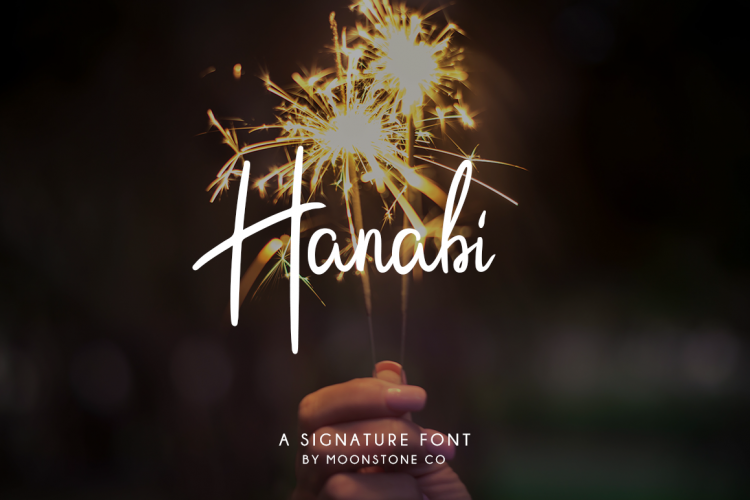
Hanabi Script Font
Introducing – Hanabi Signature Font – This would be gorgeous font for your design projects. Hanabi a work that is purely handwritten, has its own characteristics. It is perfect for invitations, signatures, blogs, social media, business cards, product brands.